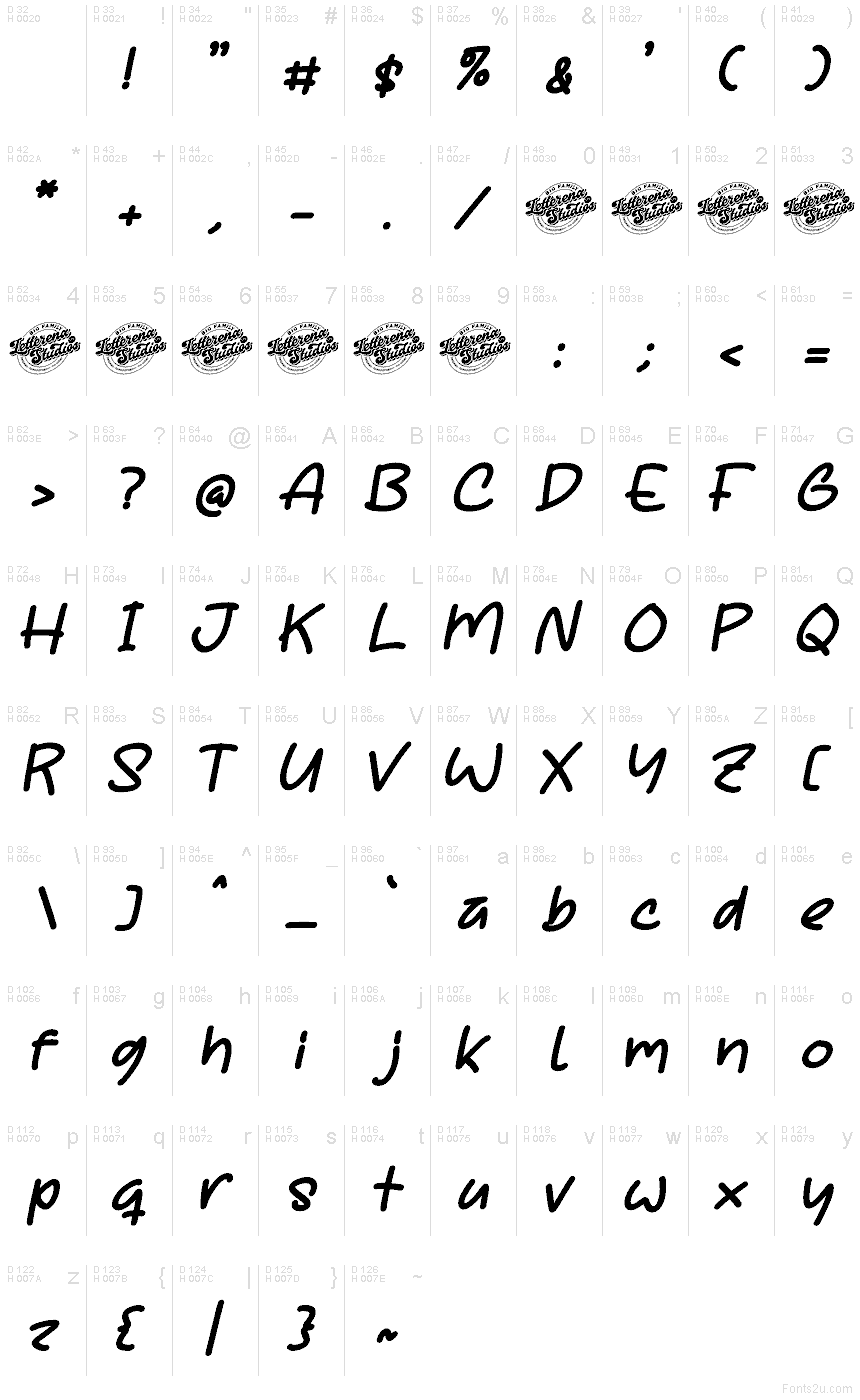
Foresto Rayfith DEMO VERSION Italic
Foresto Rayfith Italic font by Letterena Studios is a handwritten font with an organic and relaxed feel. Its letters have a smooth flow, and the overall appearance shows a mood of approachability that captures readers’ attention in a natural way. The forms are casual, resembling the rhythm of traditional handwriting for a more human touch.